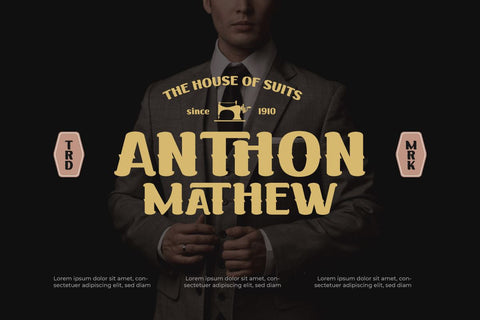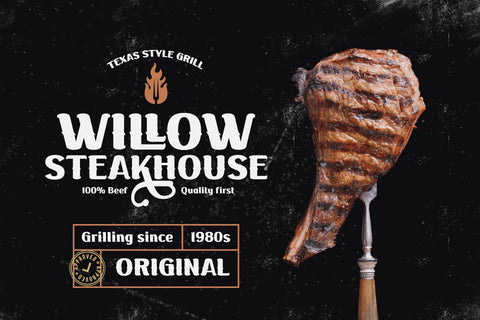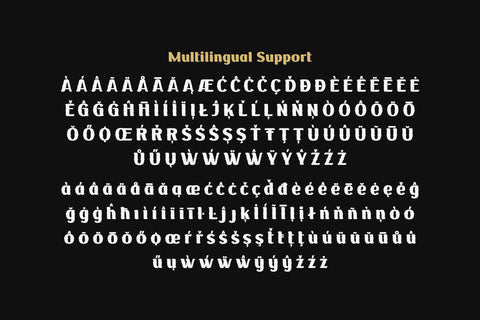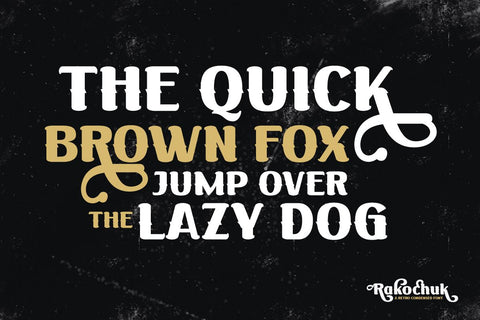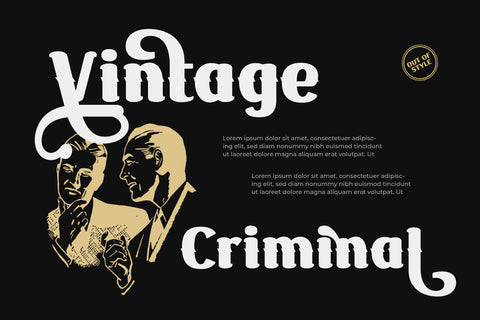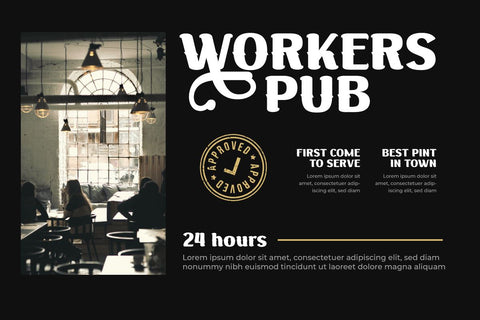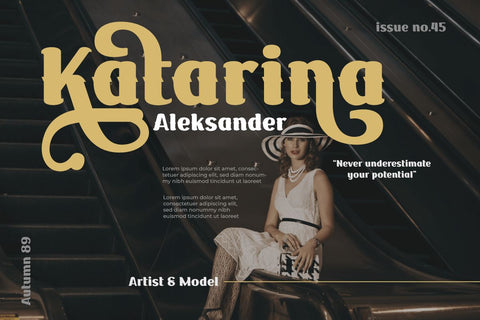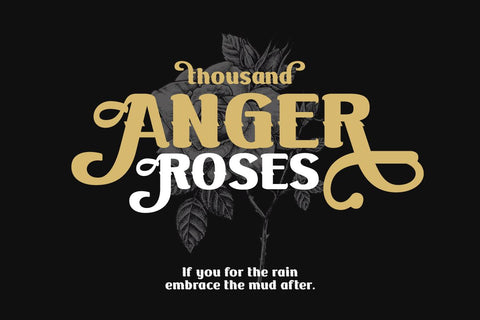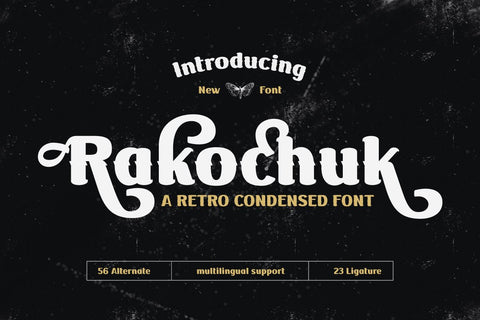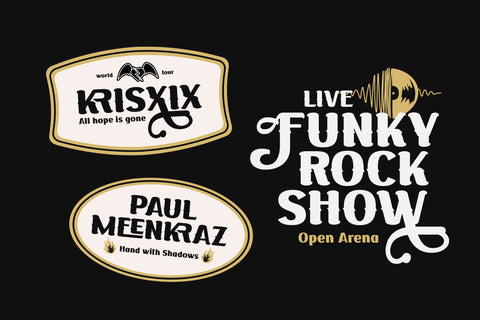
Rakochuk | Retro Condensed Font
Rakochuk is the ideal font for your project if you want a typeface that has a classic, retro, and vintage vibe in a condensed form. This typeface has a unique shape that will bring a classic touch to your project and was designed with attention and detail in mind.
Not only that, but Rakochuk includes ligature and alternate characteristics, providing you greater freedom in its application, especially when you need a more personal touch in your design. This typeface is appropriate for international projects due to its linguistic support.
- Alternate, Ligature